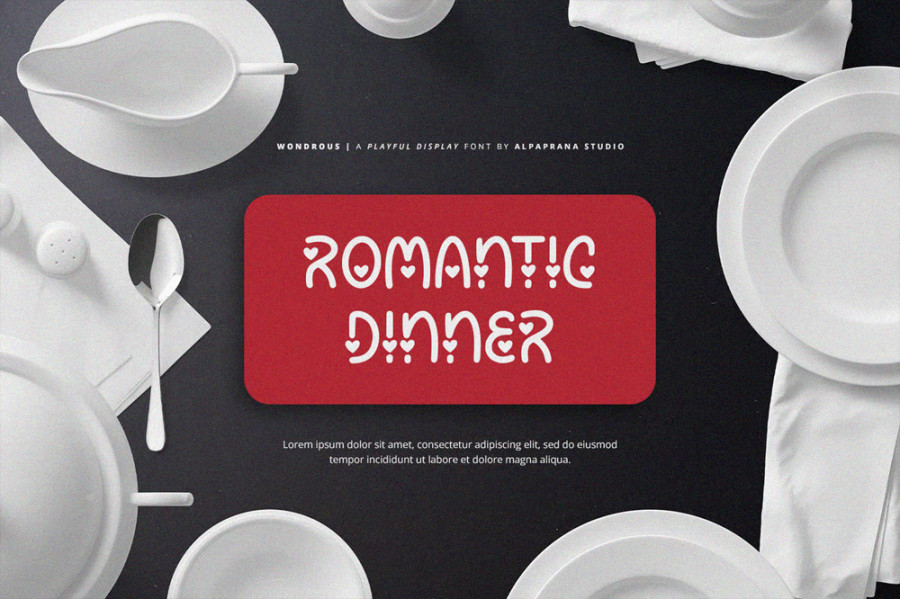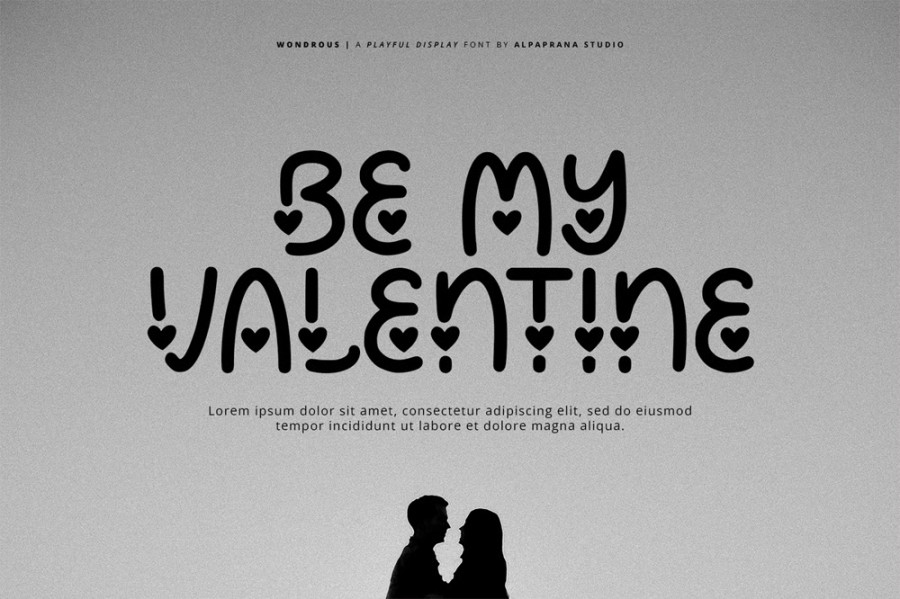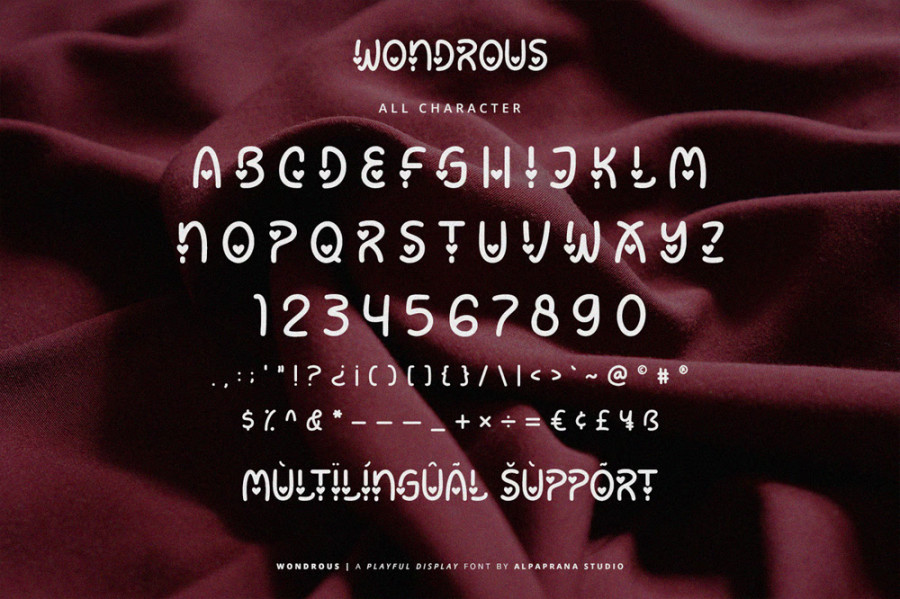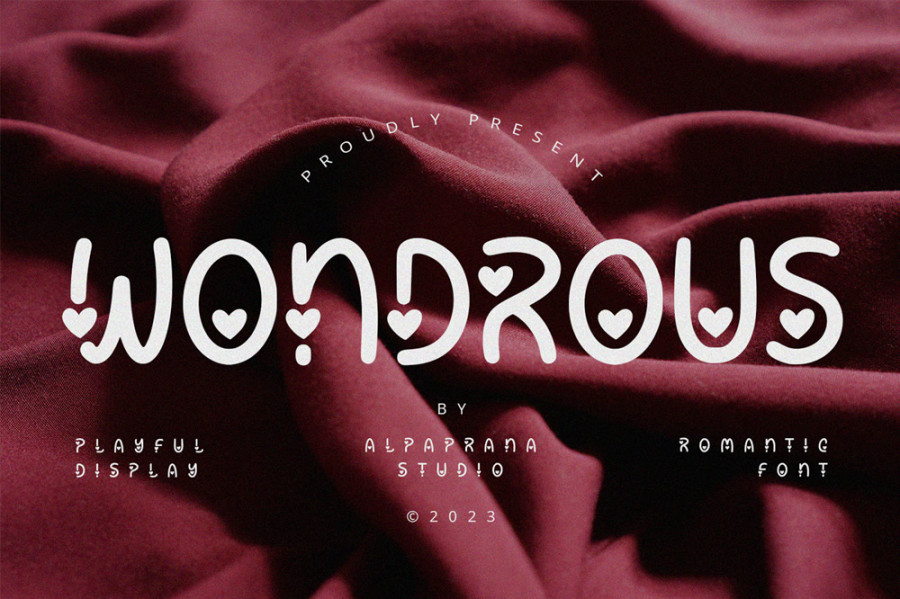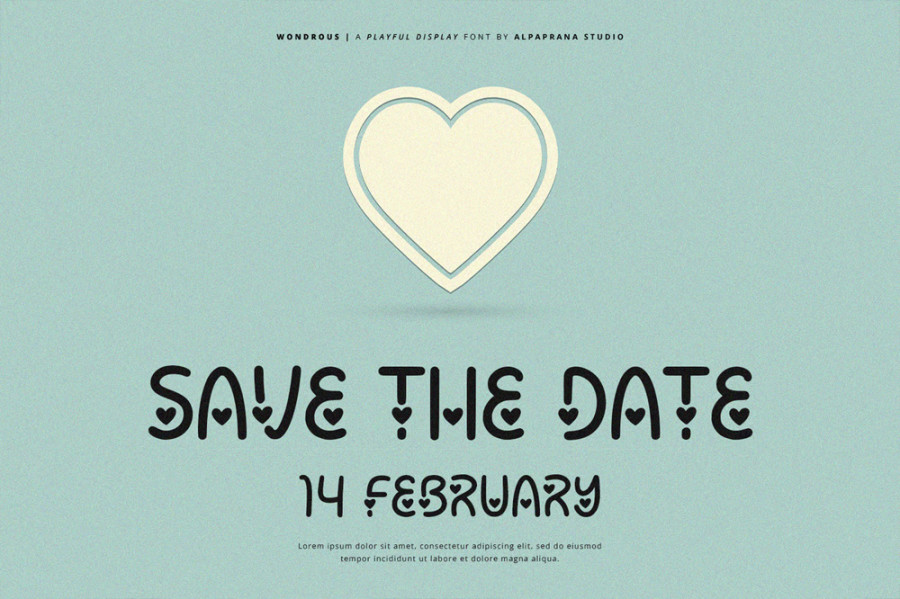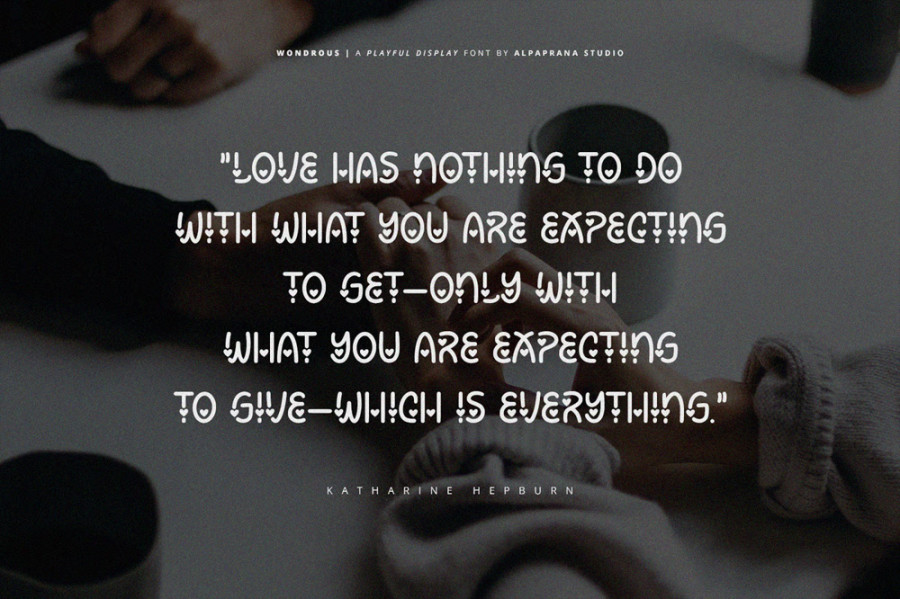
Wondrous – Display Font with a Romantic and Modern Feel
Wondrous is a stylish display font designed with a romantic and modern aesthetic, perfect for elegant branding, wedding designs, editorial layouts, logos, invitations, and creative projects. With smooth curves and expressive letterforms, this font adds personality and charm while remaining clean and contemporary. Ideal for designers looking to create eye-catching typography with a soft, refined mood, Wondrous works beautifully across both print and digital applications.
Uppercase and lowercase letters
Numerals and punctuation
Standard OpenType punctuation
Multilingual support with accented characters
Ligatures and stylistic alternates